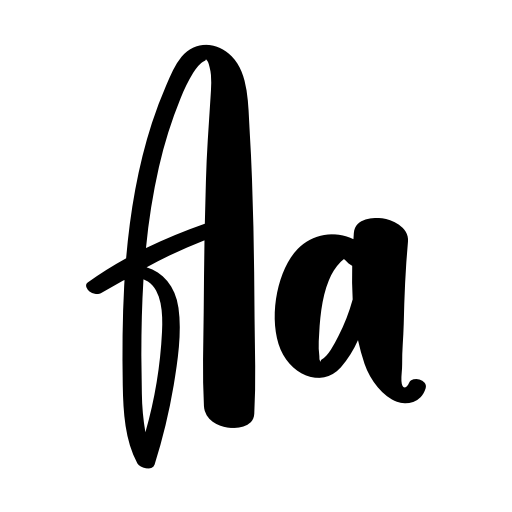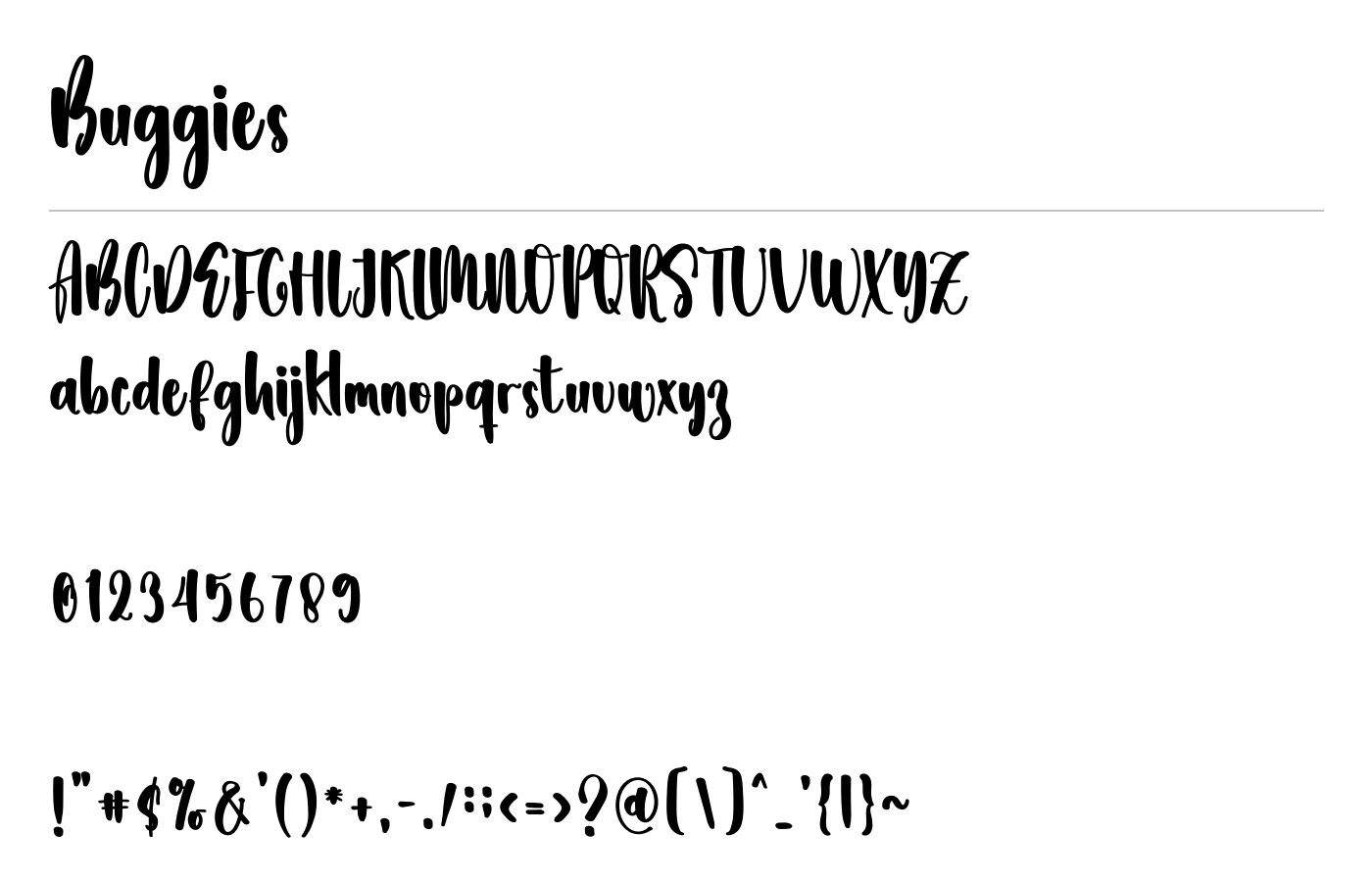
Buggies is a playful and lively handwritten script font with a bold weight and a slightly condensed width. Its letterforms are rounded and fluid, featuring unique, quirky shapes that give it a friendly and informal feel, perfect for adding personality to creative projects. This font works well in casual branding, invitations, social media graphics, or any design needing a fun and approachable aesthetic.
Buggies Font